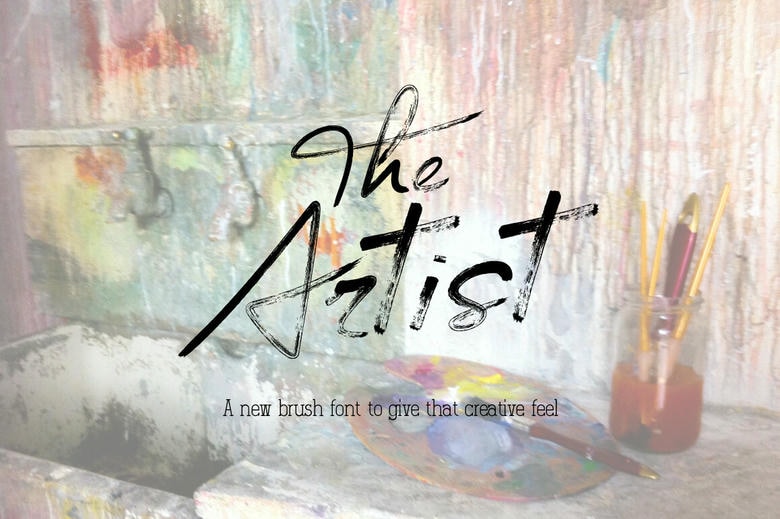
The Artist Font
The Artist is an interesting brush font which has been breathed by a sense of creativity in each stroke. This font provides a hand work and expressive air to your words, thus it is an ideal font to use in the projects that require an artistic approach.
The Artist gives it a distinct touch, whether you are creating invitations, posters, or any other creative project which is the essence of the free-spirited creativity. Make your work higher with this brush font and provide a bit of artistic power to your designs.
The Artist Brush Font